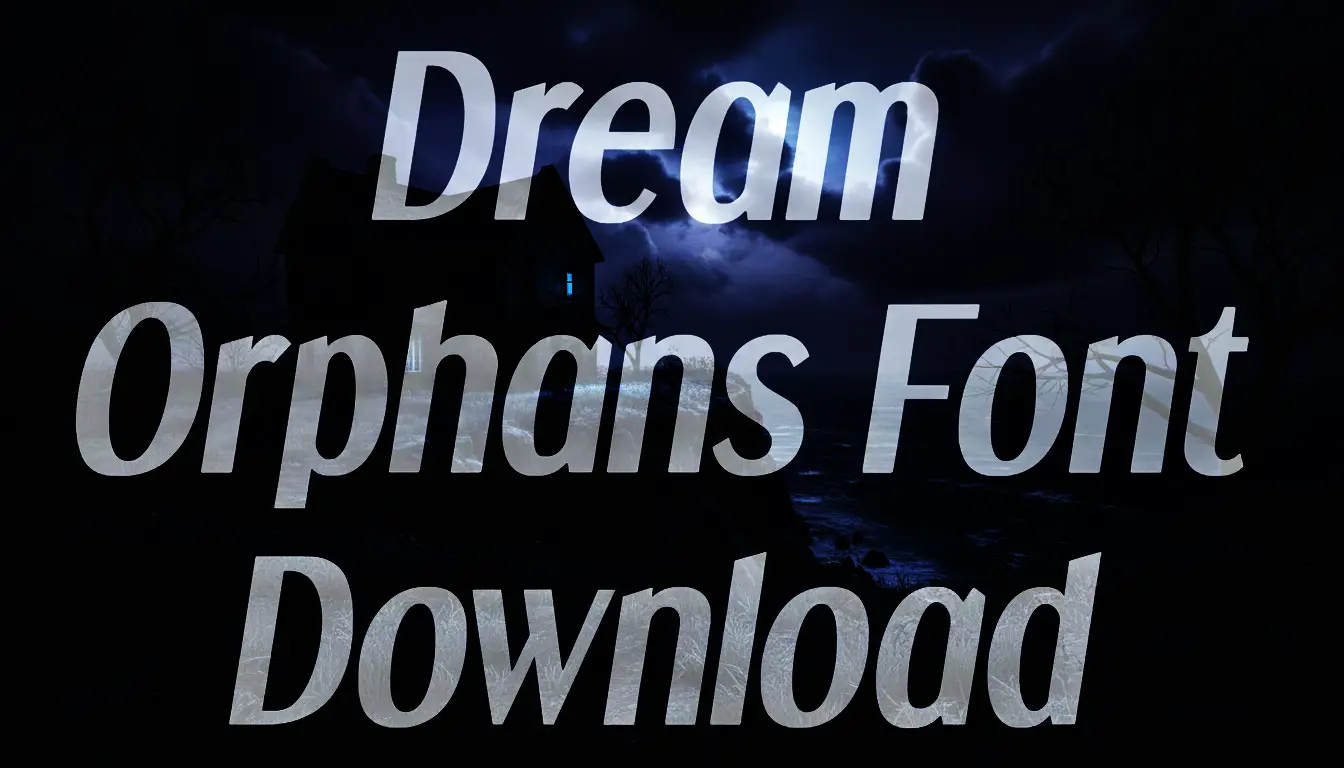
Dream Orphans Font
Dream Orphans
Dream Orphans is a sans serif font made by Ray Larabie. Its clean letters skip the little "feet" (serifs) of traditional type, so it looks modern and reads well on screens. The free download includes four styles, and you can try every one of them with your own text in the preview above.
- Designer: Ray Larabie
What You Can Type With Dream Orphans
You get every letter from A to Z in both cases and all the numbers from 0 to 9, which means Dream Orphans can handle full sentences, dates and prices. Everyday marks like &, !, ? and @ are there too. Thanks to its accented letters, it also works for Spanish, French, German, Portuguese and Italian, not just English.
Where Dream Orphans Works Best
Dream Orphans is a natural fit for websites, app screens and clean logos. It works for headings and body text alike. If the download has several weights, use a heavier one for titles and a lighter one for paragraphs. Because the family has more than one style, you can mix them in a single design for headings, subheadings and highlights.
Does Dream Orphans support accented letters?
Yes. Dream Orphans includes the accented letters needed for Spanish, French, German, Portuguese and Italian, so it works for more than just English.